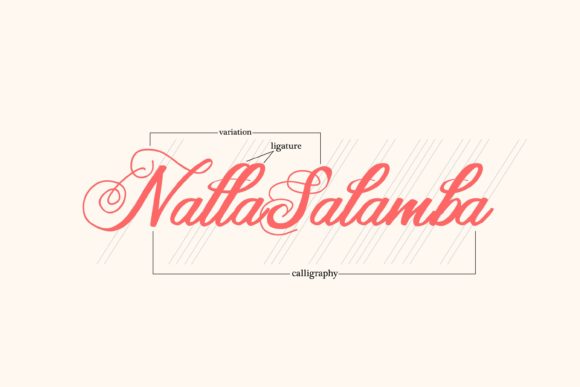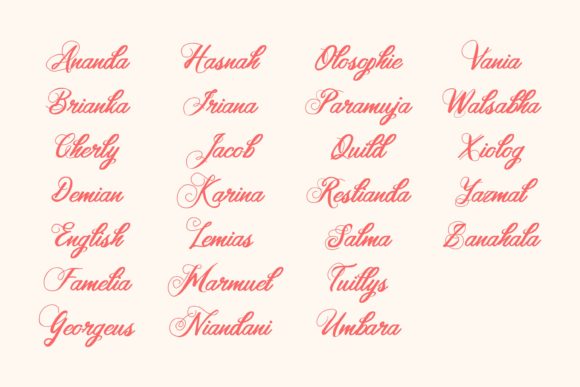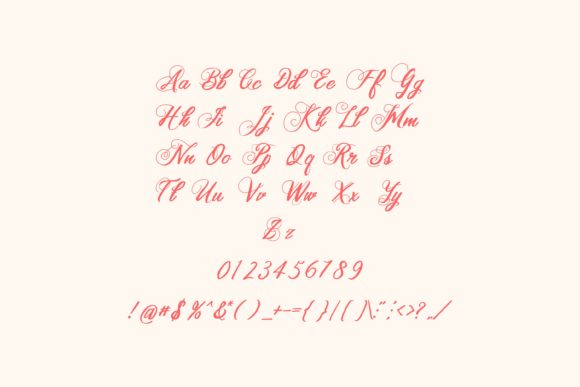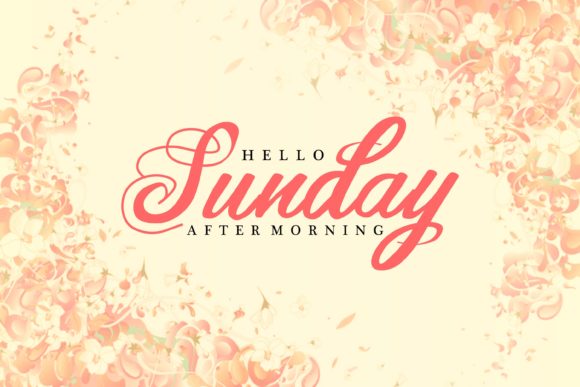
Introduction to Samanda Font
Have you ever been working on a creative project, pouring your heart and soul into it, only to feel like something’s missing? That’s where the perfect font can make all the difference. For designers, a high-quality font can elevate a design from good to great, making it stand out in a crowded market.
That’s where the Samanda Font comes in – a modern calligraphy font with a delicate scratch that adds a touch of elegance to any design. This versatile font is perfect for adding a feminine touch to your designs, and its transparent background makes it easy to layer and customize. Whether you’re working on a branding project, a wedding invitation, or a social media graphic, the Samanda Font is a valuable design resource that’s sure to impress.
Key Features of Samanda Font
- Designed with precision and attention to detail, resulting in a crisp and clear font at resolutions up to 300 DPI.
- Perfect for use in a variety of design projects, including logos, graphics, and typography-based art.
Honest Review: Samanda Font
As a designer, I’m always on the lookout for high-quality fonts that can elevate my creative projects. I recently stumbled upon the Samanda Font, and I must say, it’s a fantastic addition to my design resource library. The font is free to download, which is a major plus!
Here are some things that work well with the Samanda Font:
- ✨ Unique and elegant design that’s perfect for headings and titles.
- ✨ Transparent background, making it easy to layer and combine with other design elements.
- ✨ Highly customizable, allowing for easy adjustments to font size, color, and style.
However, I do have a few concerns:
- ⚠️ Limited font styles and weights, which may not be ideal for projects requiring a wide range of typography.
- ⚠️ Not all characters and symbols are supported, which may cause issues with certain languages or special characters.
Overall, I’m impressed with the Samanda Font’s potential and would definitely recommend it for smaller-scale design projects or as a complementary font to other designs. However, for larger or more complex projects, you may want to consider other high-quality font options.
Tips for Getting the Most Out of Samanda Font
Experiment with different font sizes and colors to add visual interest to your design.
Use the transparent background feature to create a cohesive design that integrates seamlessly with your design elements.
Samanda Font is ideal for creative projects that require high-quality design elements, such as logos, business cards, and brochures.
The font is also suitable for digital design projects, such as social media graphics and website design.